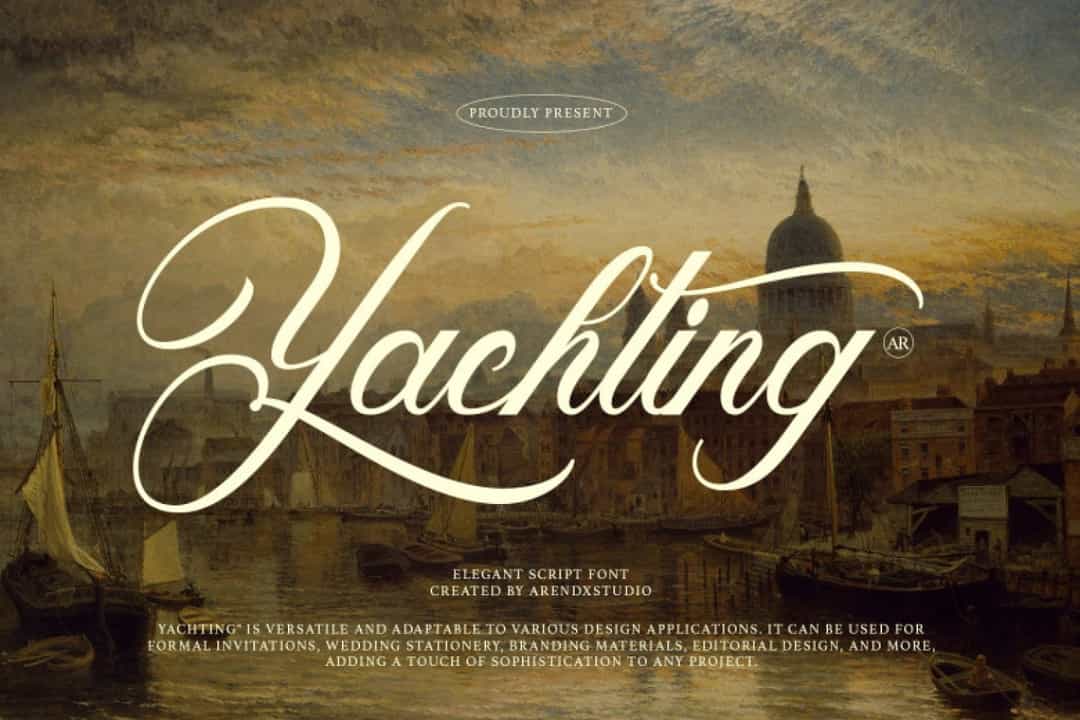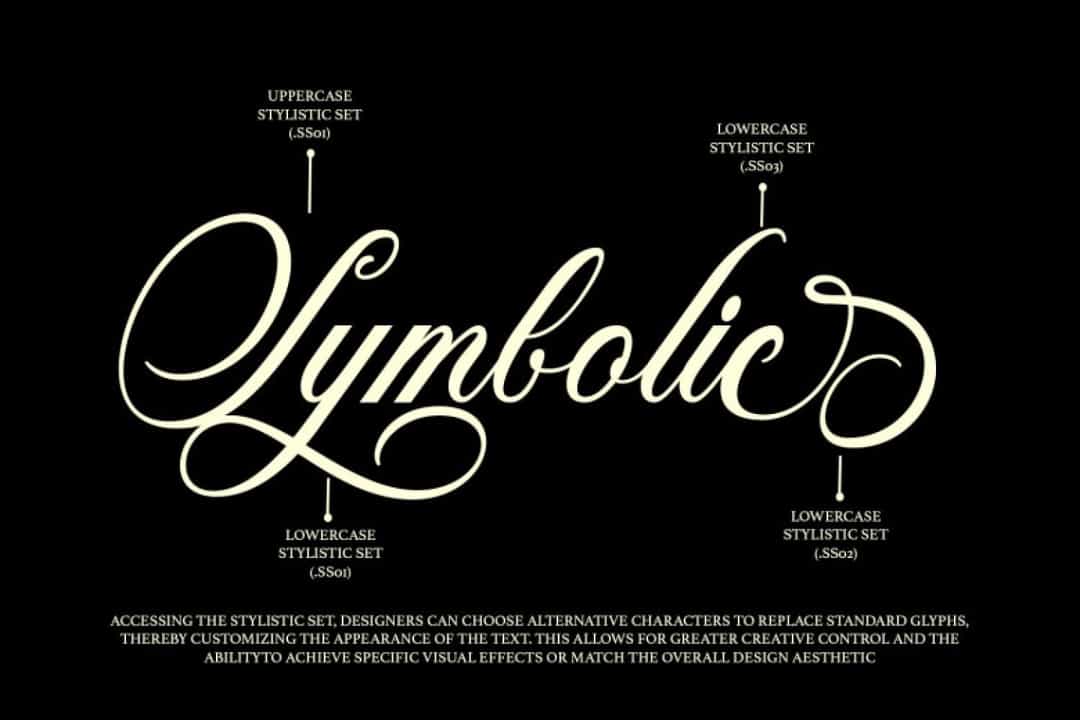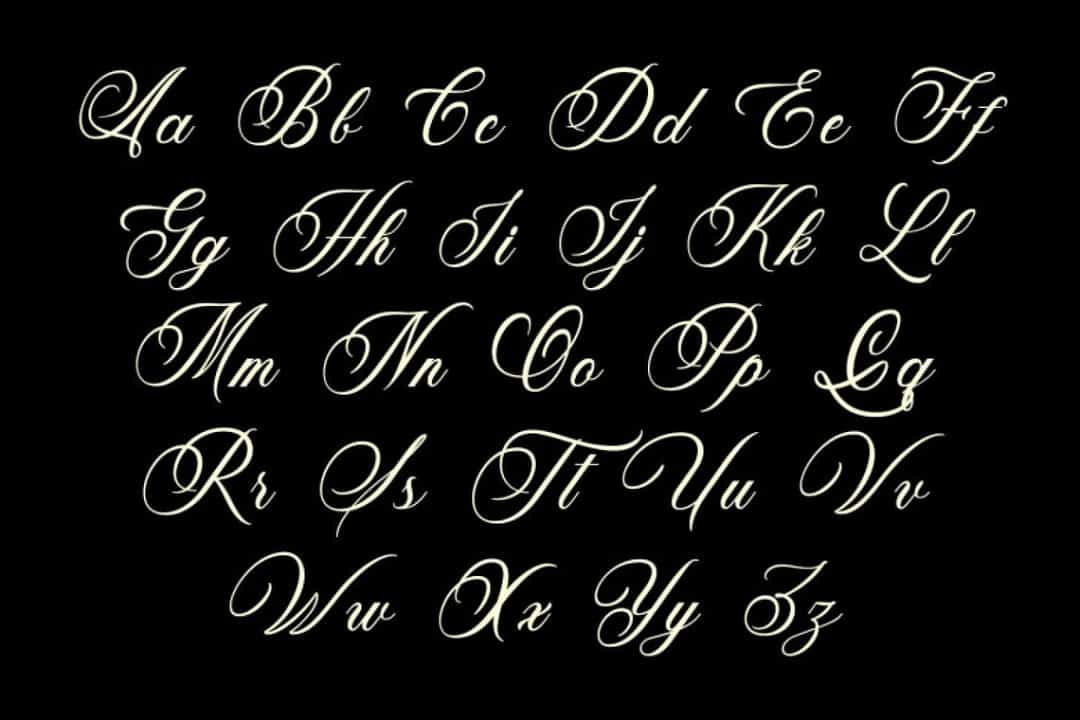
“Yachting” sophisticated script typeface exudes elegance and class in its style, making it the perfect choice for high-end designs. “Yachting” features elegant letterforms with graceful curves and exquisite flourishes; every letter carefully designed to exude class and refinement.